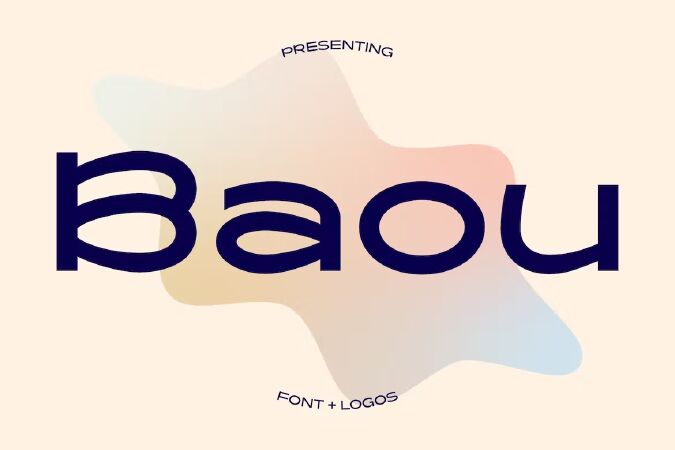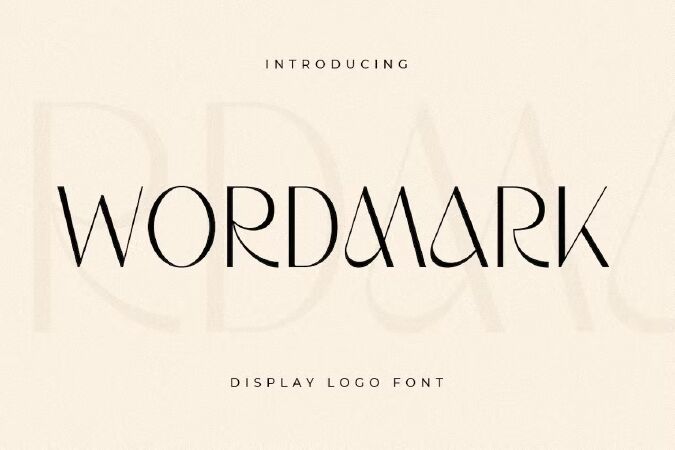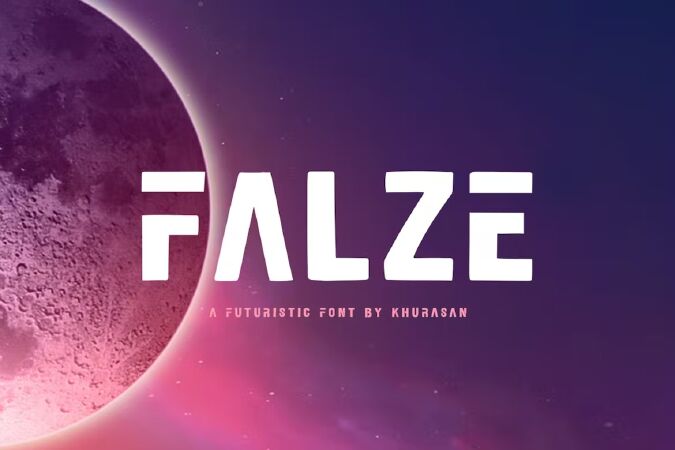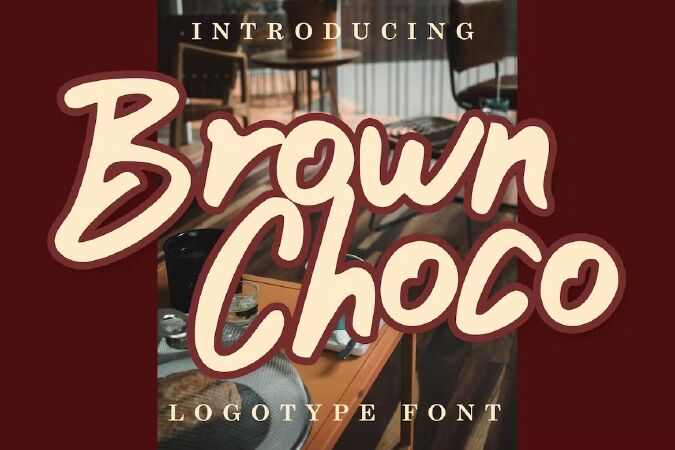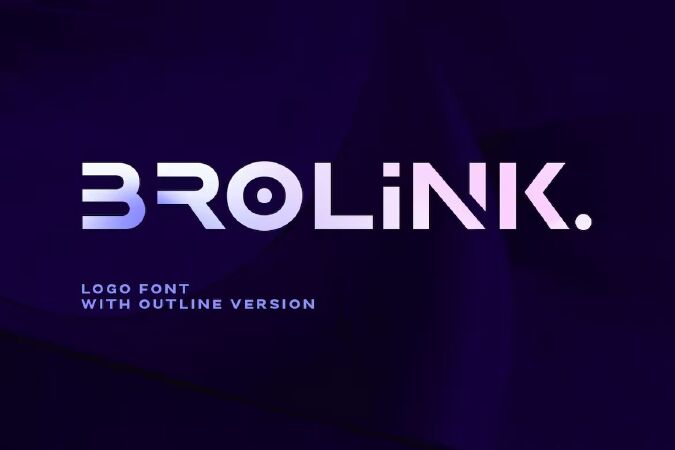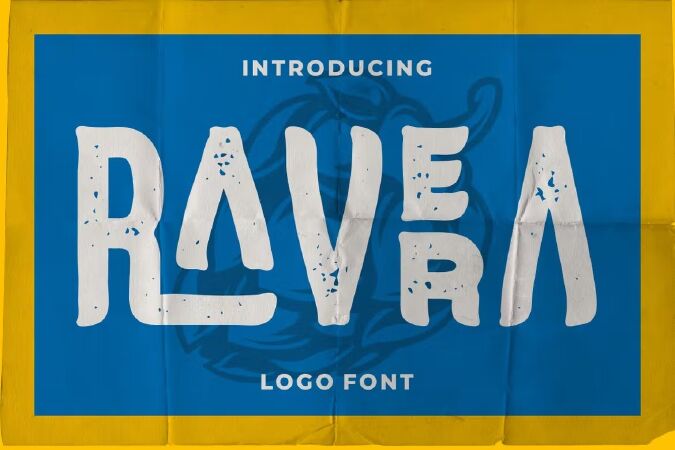
Top 20+Perfect Logo Fonts For Branding Design 2023
20+Perfect Logo Fonts For Branding Design 2023. How to choose the most suitable font for logo and brand design? Font choice is a critical element of logo design. By changing your logo font, you can completely change your brand’s mood and message. Your font even has the power to influence your customer’s thoughts and emotions! However, there are many fonts that you can select from. So, how do you know you’ve found the right one for your brand? In this article, we present 20+ popular logo fonts for your branding design that will make an impact in 2023.
1 Baou Modern logo font
Baou is a bold modern sans serif font with a super wide width. enough space to really settle in. Its Pinched Curves and vertical terminals give just enough personality to get noticed without getting old. Baou is perfect for display type or body copy. Use it on Instagram, posters, web design, magazines, logos, or products. The product comes with 5 logo templates and a color palette.
2 Wordmark - Display Logo Font
A Unique Display Logo Font that we created special for Beauty and Modern branding needs that will give you more elegant look, with alternates in unique shape will be ready to add value of your brand. It so nice to leverage designer or product owner that need solutions to make their design look more Beauty and modern. And specially for this font, We prepared any alternate characters to help you create unlimited variations for your creative needs.
• Any options to get creative variations (combination of Alternates)
3 Falze - Futuristic Logo Font
Introducing, Falze is a unique and futuristic sans-based font that makes your designs more modern. The Falze font is also perfect for creating modern logos and logos, branding, greeting cards, branding, posters and any design you create.
4 Brown Choco Logo Font
Brown Choco is unique logotype font. This font is perfect for logo, quote, poster, playful lettering, for clothing, or any design projects.
5 Rossa Script - Logo Font
Give your designs an authentic handcrafted feel. "Rossa Script" is perfectly suited to signature, stationery, logo, typography quotes, magazine or book cover, website header, clothing, branding, packaging design and more.
6 Clickbait - Brush Logo Font
A calligraphy dry brush font that you'll never ignore. Implementation of almost-empty brush pen and super fast stroke to get those natural texture of hand lettering impression.
Some tips : it kinda perfect for logo, branding, a punchline words in a poster, quote, and any kind of situation that need an 'in your face' word.
Comes up with Uppercase stylistic alternates, double-letters ligatures (to get the feel of real handwriting) and some international language support (check the image)
7 Behover - Sports Logo Font
Behover is a bold with sans style font, comes with mix lowercase and uppercase to make your design easier and strong bold character.
Suitable for logotype, esport logo, or anything about display and headline.
8 Brolink - Logo Font
Brolink is a wide bold sans based font with unique lowercase that will make your design looks sci-fi and modern.
You can use this font for any purpose, especially to make logotype. You can mix and match the uppercase and lowercase to make your logo more readable.
This font also comes with outline style!
9 Ravera - Logo Font
20 Braque - Modern Geometric Logo Font
Introducing Braque - a modern and geometric logo font with minimal vibes.
This abstract font is meant to be used for headlines, titles, logos, posters, flyers, etc - anything that requires a unique geometric typeface with modern vibes.
The font comes with a basic set of latin characters in uppercase and lowercase in addition to special glyphs.